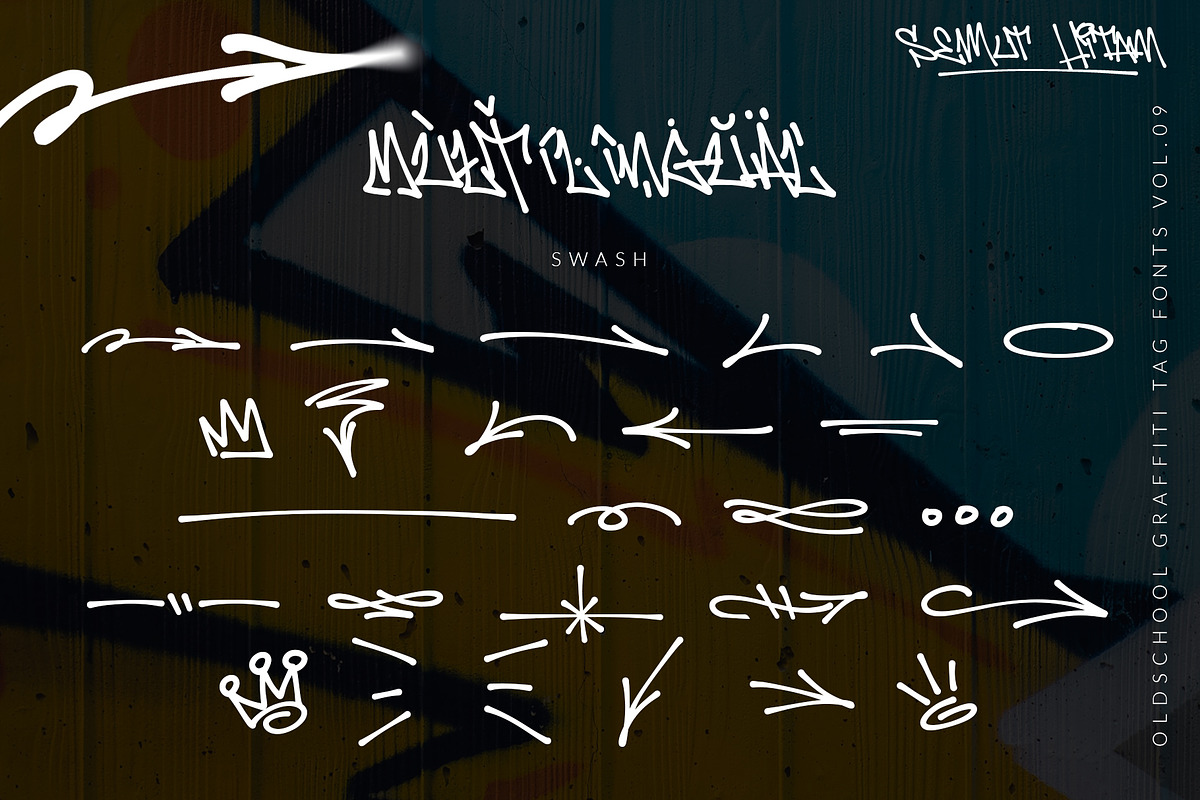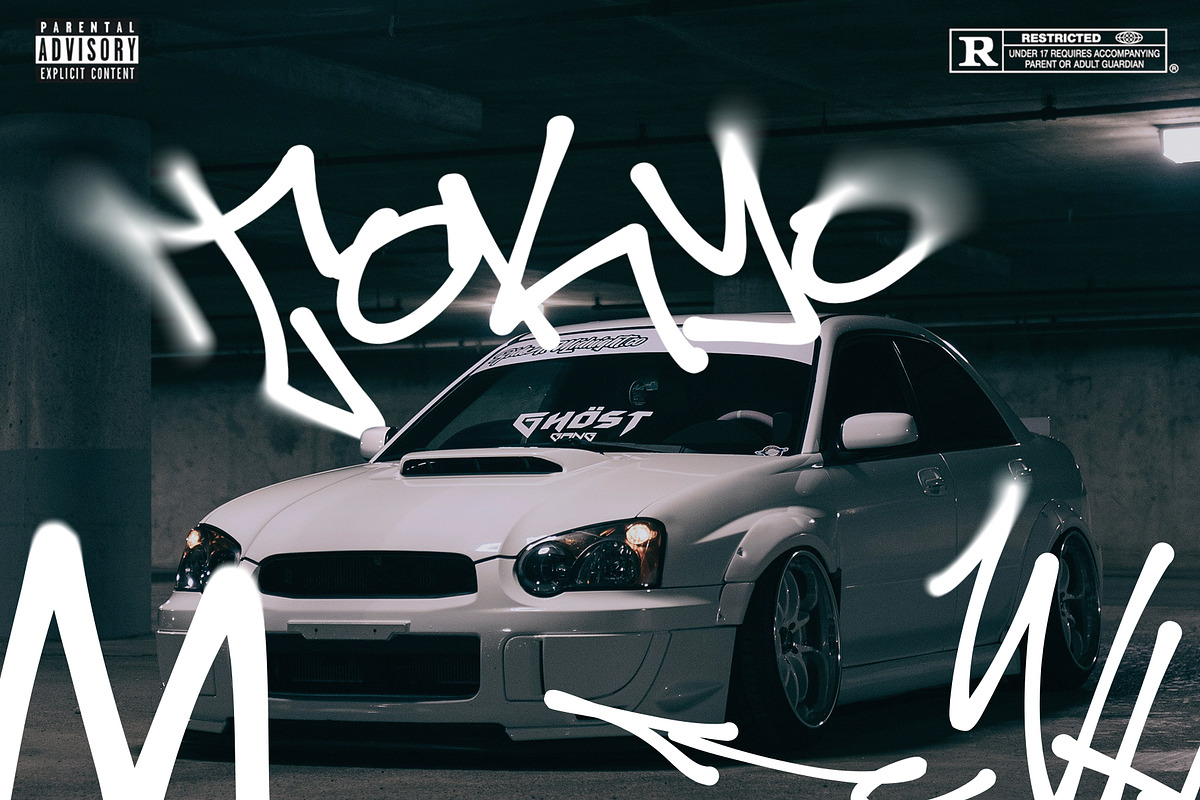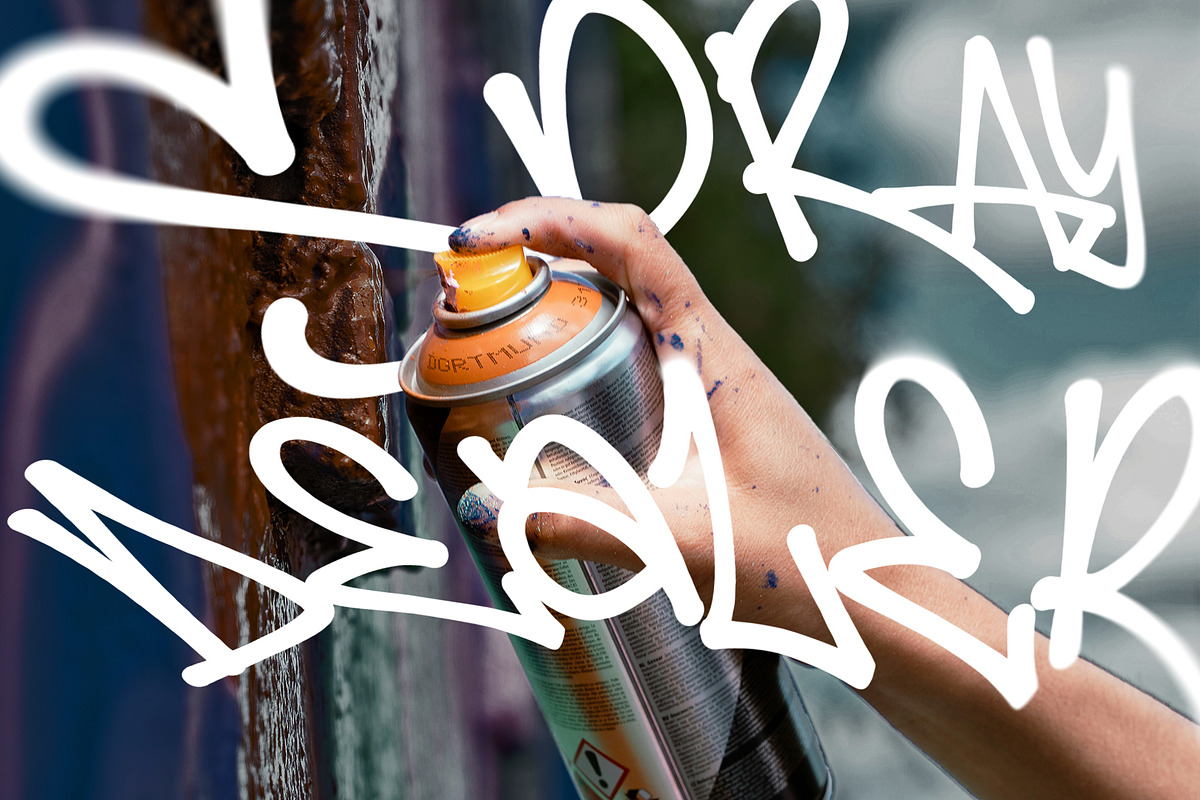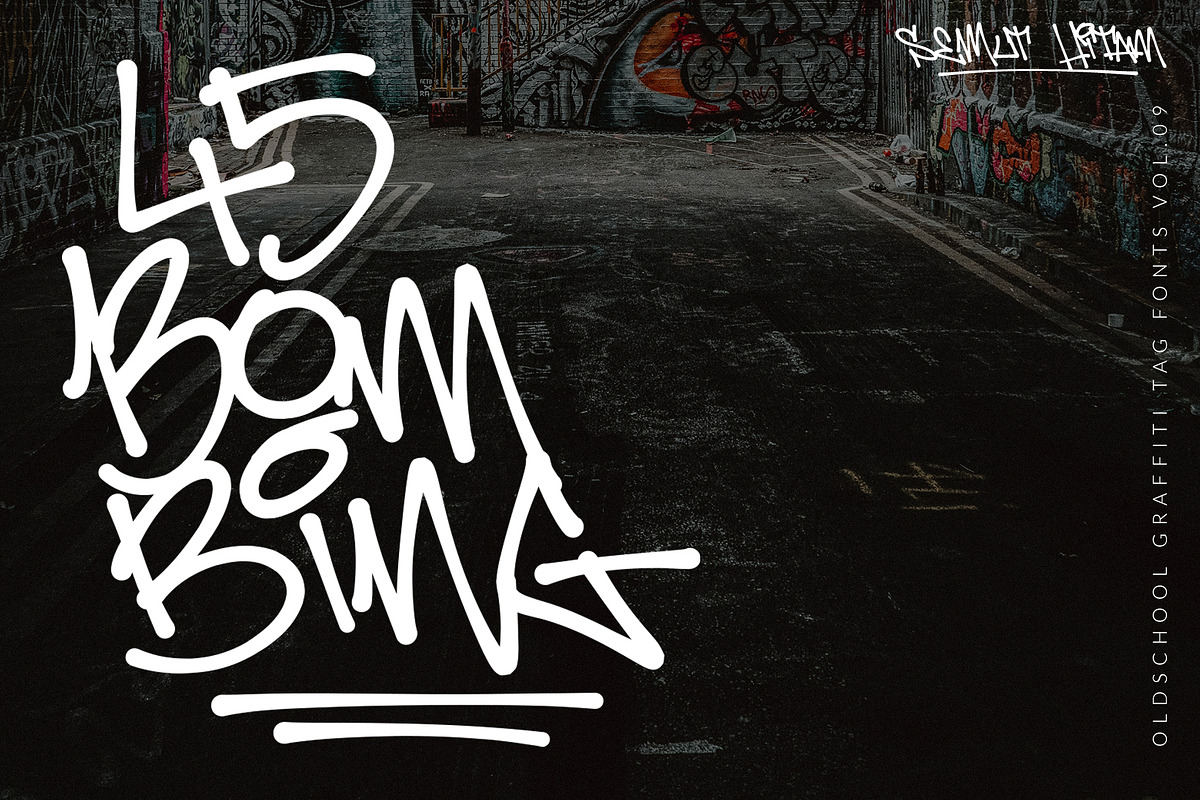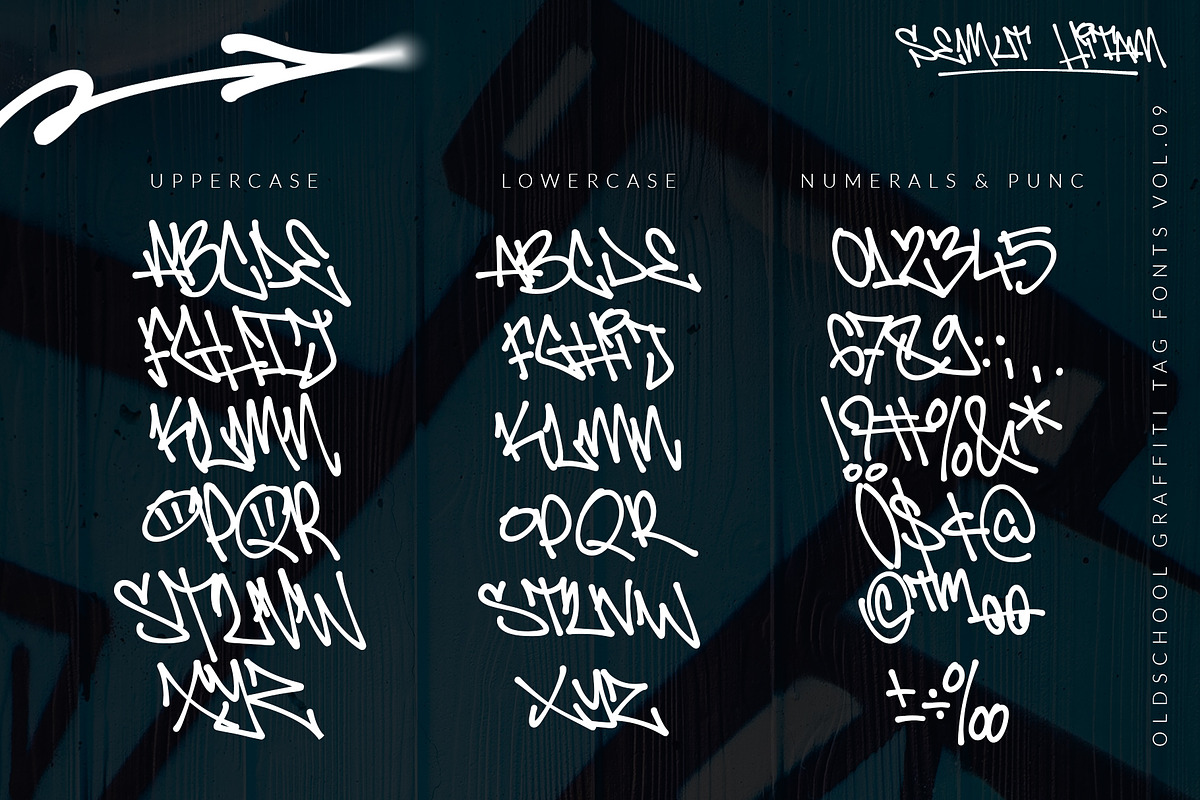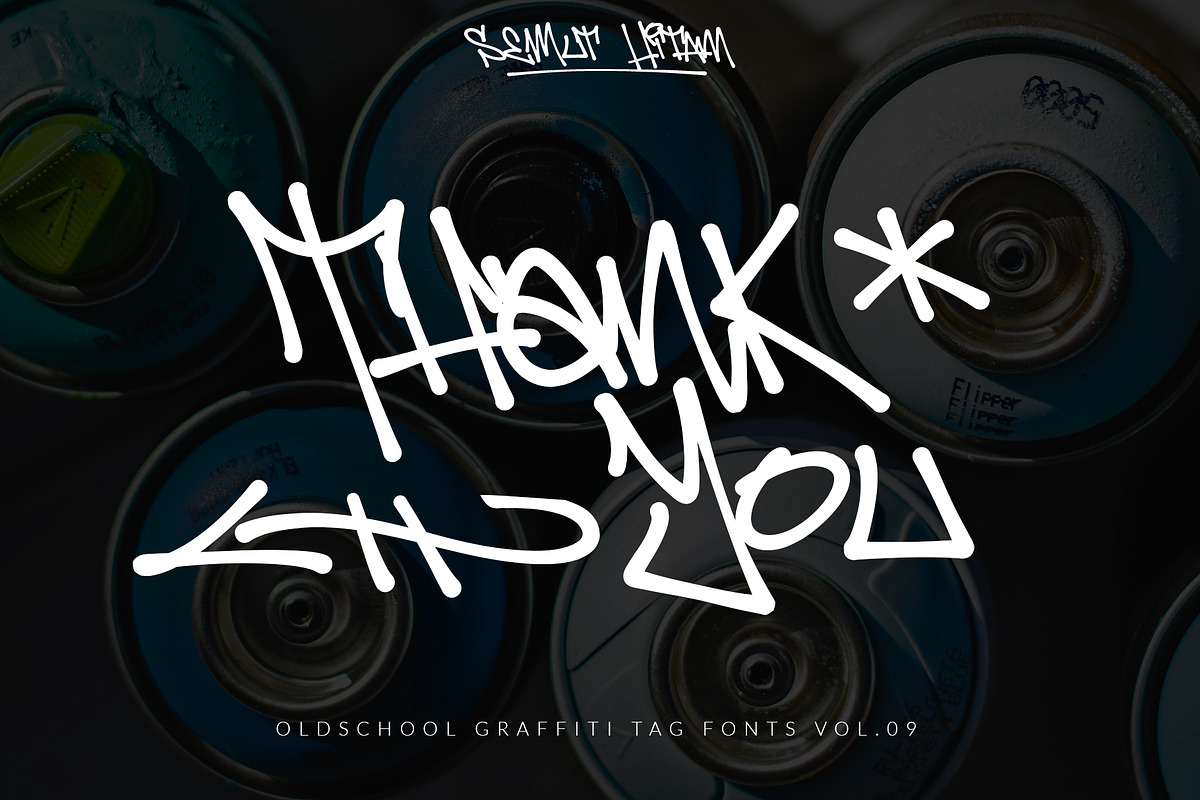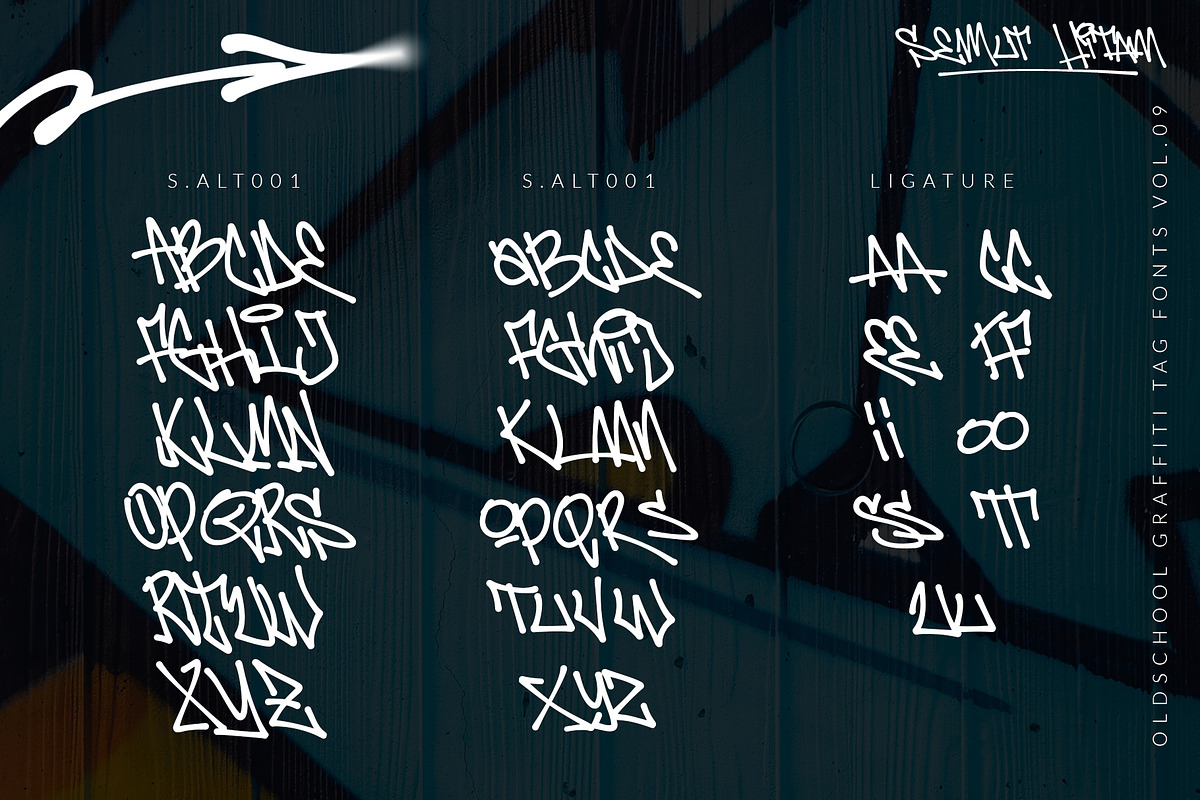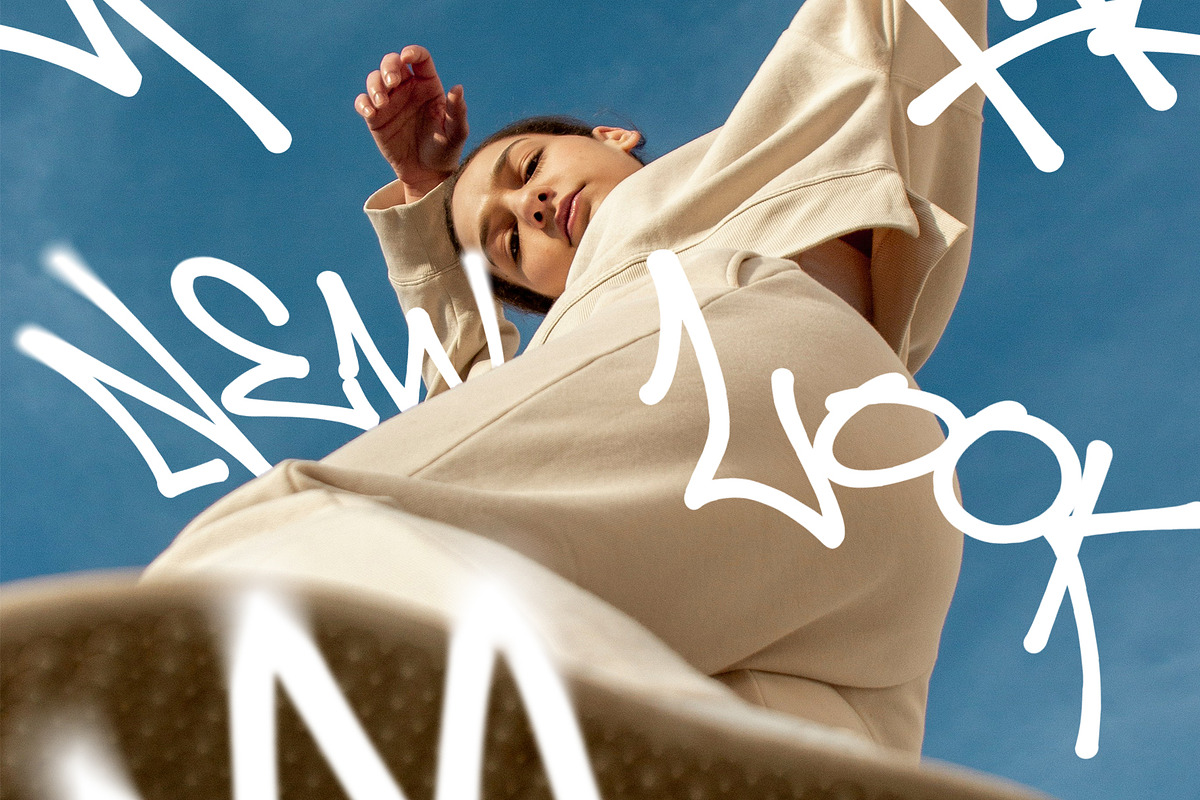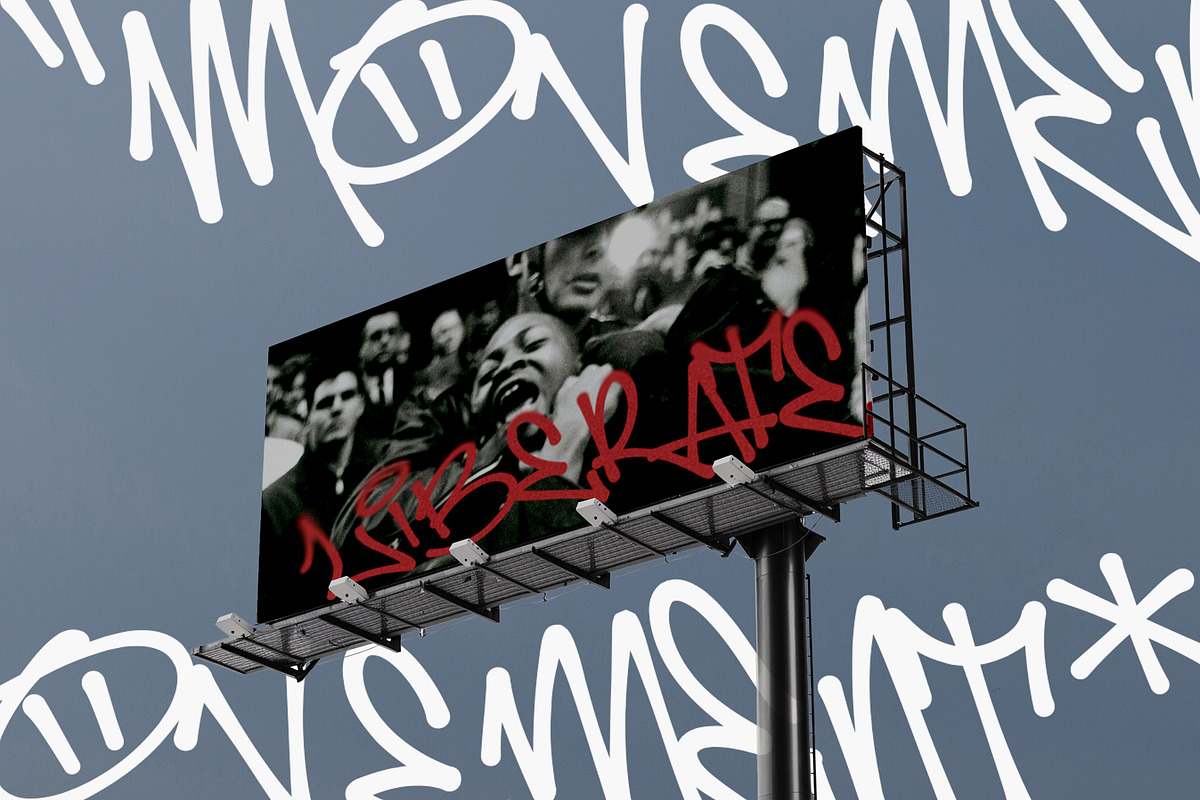
45 Bombing – Street Graffiti Font
45 Bombing – Old School Graffiti Tag Font
45 Bombing is a raw and authentic graffiti tag font inspired by underground street bombing culture, marker handstyles, subway tagging, and urban wall signatures.
Built with expressive strokes and natural tagging flow, this font captures the energy of real handwritten graffiti while remaining highly usable for digital design projects. The OpenType features include stylistic alternates, ligatures, and custom swashes that help create more dynamic and less repetitive lettering compositions — something highly important in graffiti-inspired typography. Community discussions around graffiti fonts often highlight that authenticity comes from variation, flow, and contextual letter interaction.
Swashes
The visual style combines old school tagging aesthetics with modern digital usability, making it suitable for both authentic street-inspired projects and contemporary urban branding. Graffiti fonts continue to be widely used for posters, music visuals, and edgy branding because of their bold and expressive character.